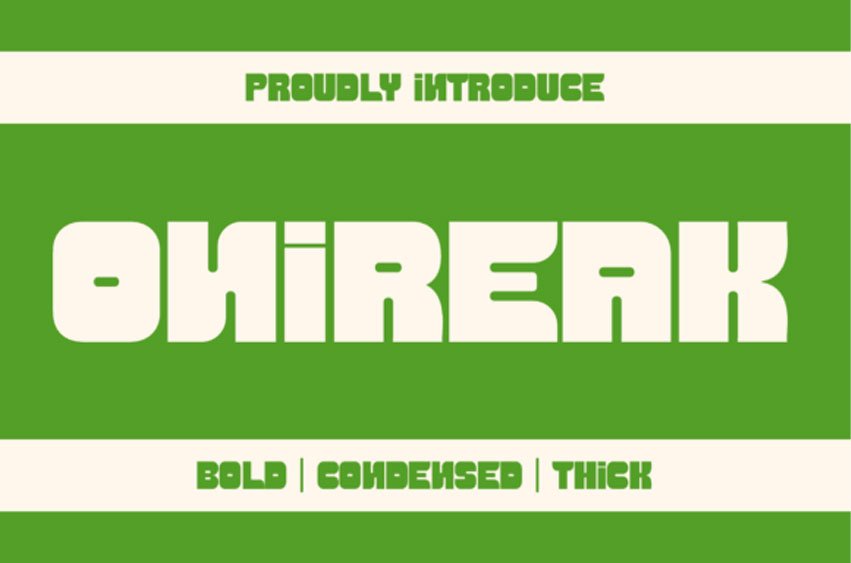
Onireak Font is a bold and assertive sans serif typeface.
Regardless of the topic, this font will be an invaluable addition to your font library, as it can enhance any project.